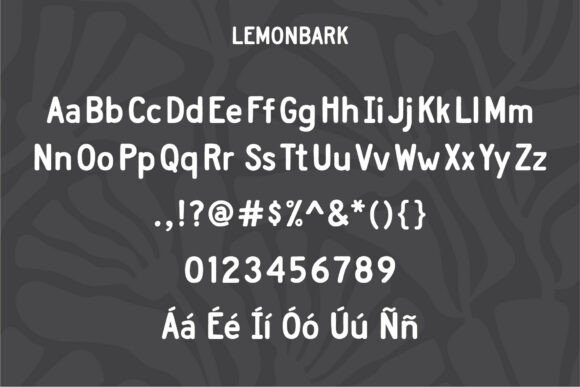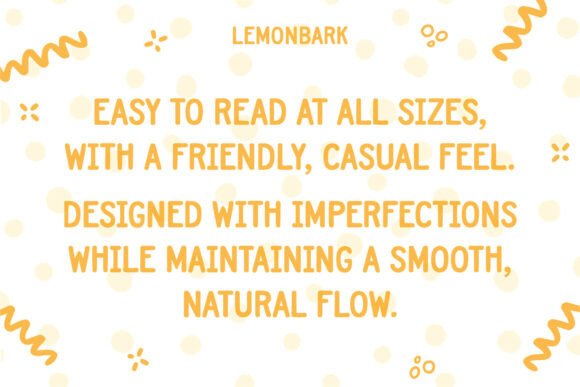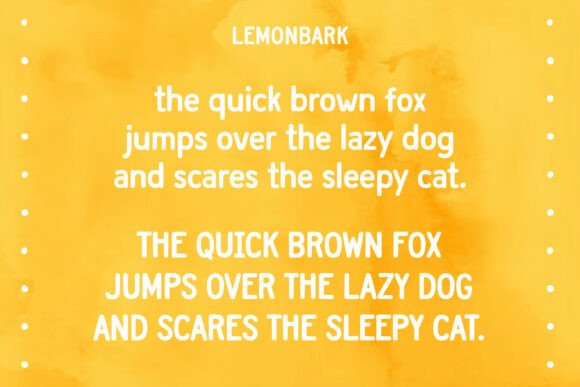
Introduction to Lemonbark Font
Lemonbark is an airy, hand-illustrated sans serif font featuring a hint of irregularity that gives it plenty of character.
Designed with rounded details and lots of personality, it perfect for branding, packaging, editorial layouts, and standout display copy It’s playful yet sophisticated style also works beautifully for social media graphics, invitations, product labels, or any design that needs a fresh, approachable vibe.
Key Features of Lemonbark Font